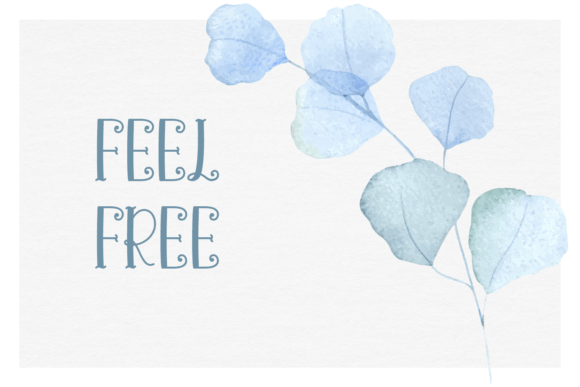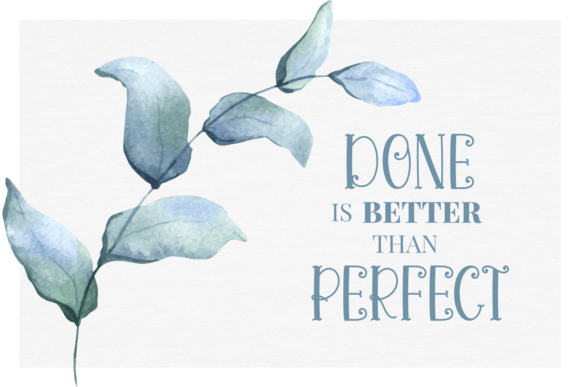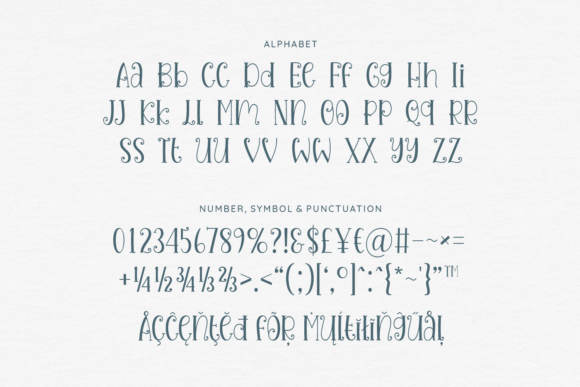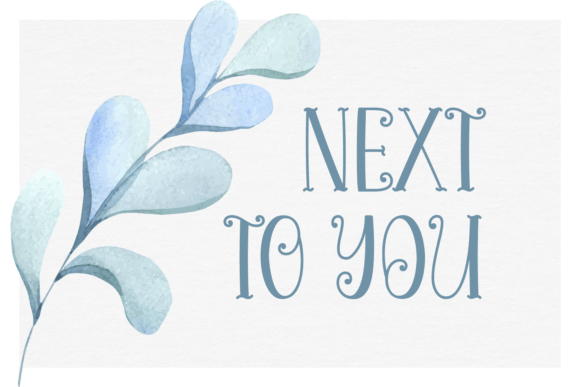
Introduction to Next to You Font
Next To You is a sweet, thin-lettered, and funny display font.
This typeface will be a fantastic addition to your library of fonts, whatever the subject, as it has the ability to improve any design This font is perfect for personal branding, wedding invitations, wall art, frames, cards, t-shirts, posters, quotes, and more.
Next to You Font offers exceptional quality and versatility, making it a valuable addition to your design toolkit. Whether you’re creating for personal projects or commercial use, Next to You Font delivers professional results.